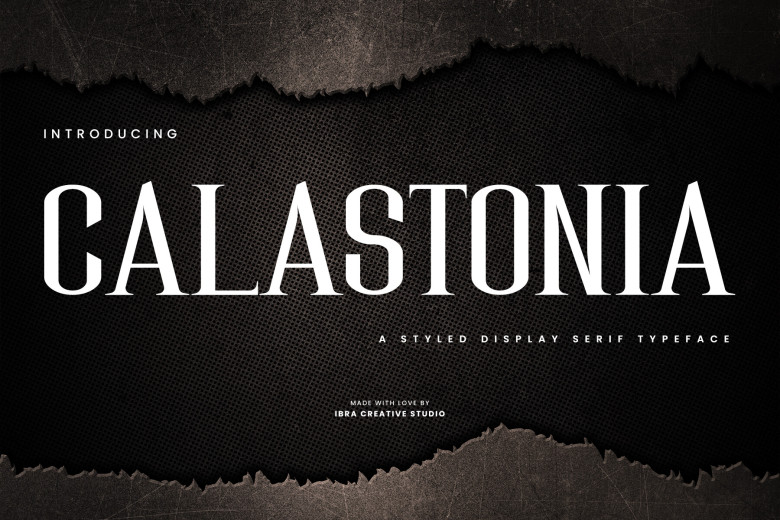
Calastonia Font
Calastonia is a styled display serif typeface that has been designed with a lot of skill and is the epitome of class and subtle current innovation. Round shapes of the letters and subtle details make Calastonia appropriate for being used in any design project. The typeface presents a proportional use of serifs and fine curves enabling a symmetrical and more arresting look that gives the impression of affluence.
Calastonia Serif Font